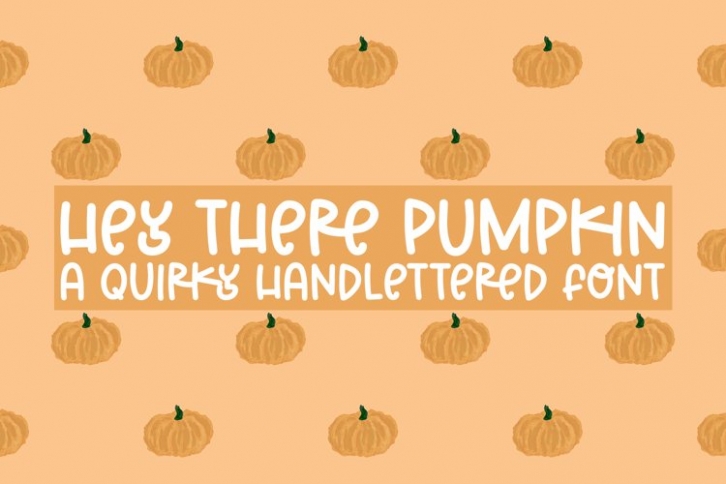
Hey There Pumpkin is a gorgeous font that was realeased on November 5, 2022. The font can be used in many style contexts and design environments. Perfect for invitations, magazines, websites, logos, and more! It was designed by plusstore and the file size is 5.53 MB. Thanks for checking out this font!